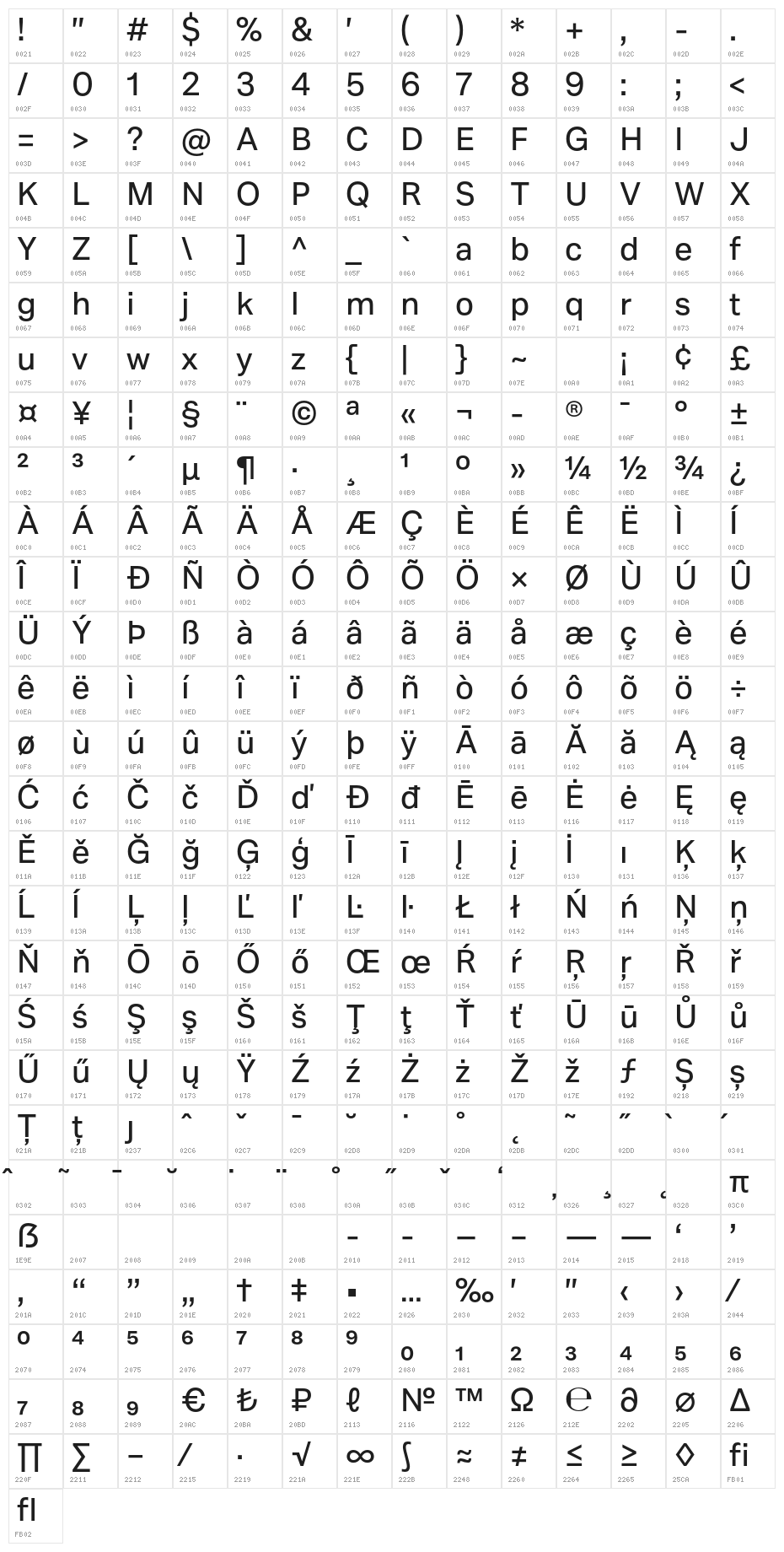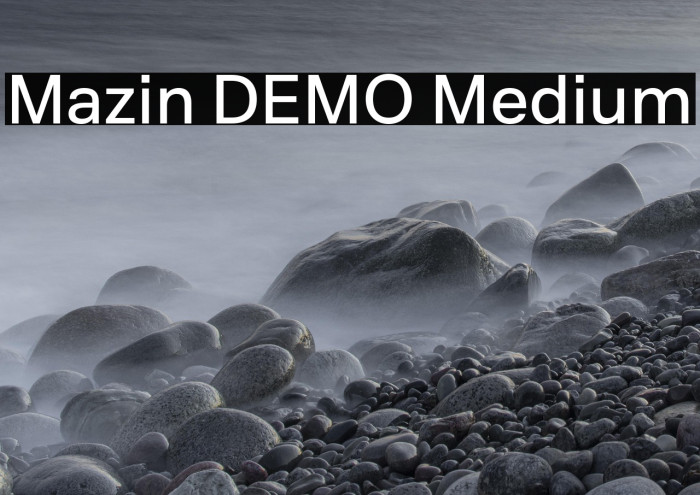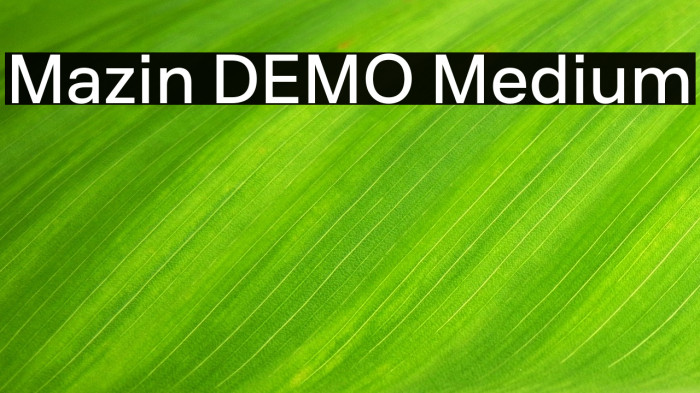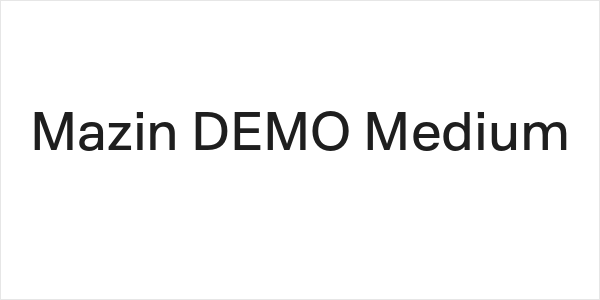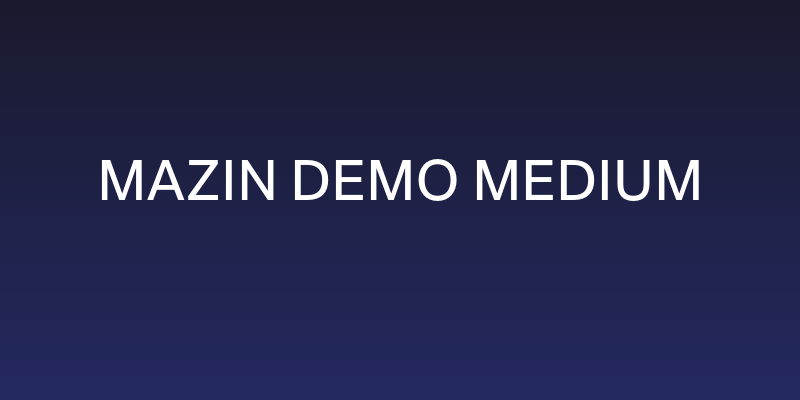
Mazin DEMO Medium Font
Mazin DEMO Medium Description
This font features a clean and modern sans-serif design, characterized by its geometric shapes and uniform stroke widths. The uppercase letters are bold and assertive, while the lowercase letters maintain a consistent and harmonious appearance. The numerals are clear and easily distinguishable, making them suitable for various applications. The special characters are well-integrated, ensuring versatility in design projects. Overall, this font exudes a contemporary and professional aesthetic, ideal for digital and print media.